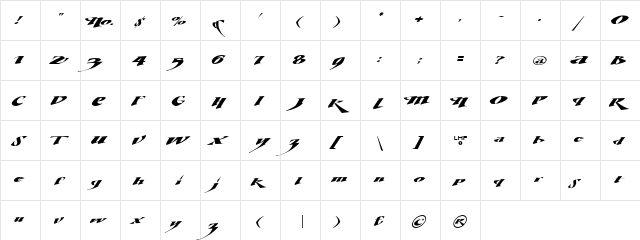
LHF Diptripflipfantasia Regular
Design Context for LHF Diptripflipfantasia Typeface
LHF Diptripflipfantasia is a composed and adaptable typeface that performs quietly and consistently across a wide range of design contexts.